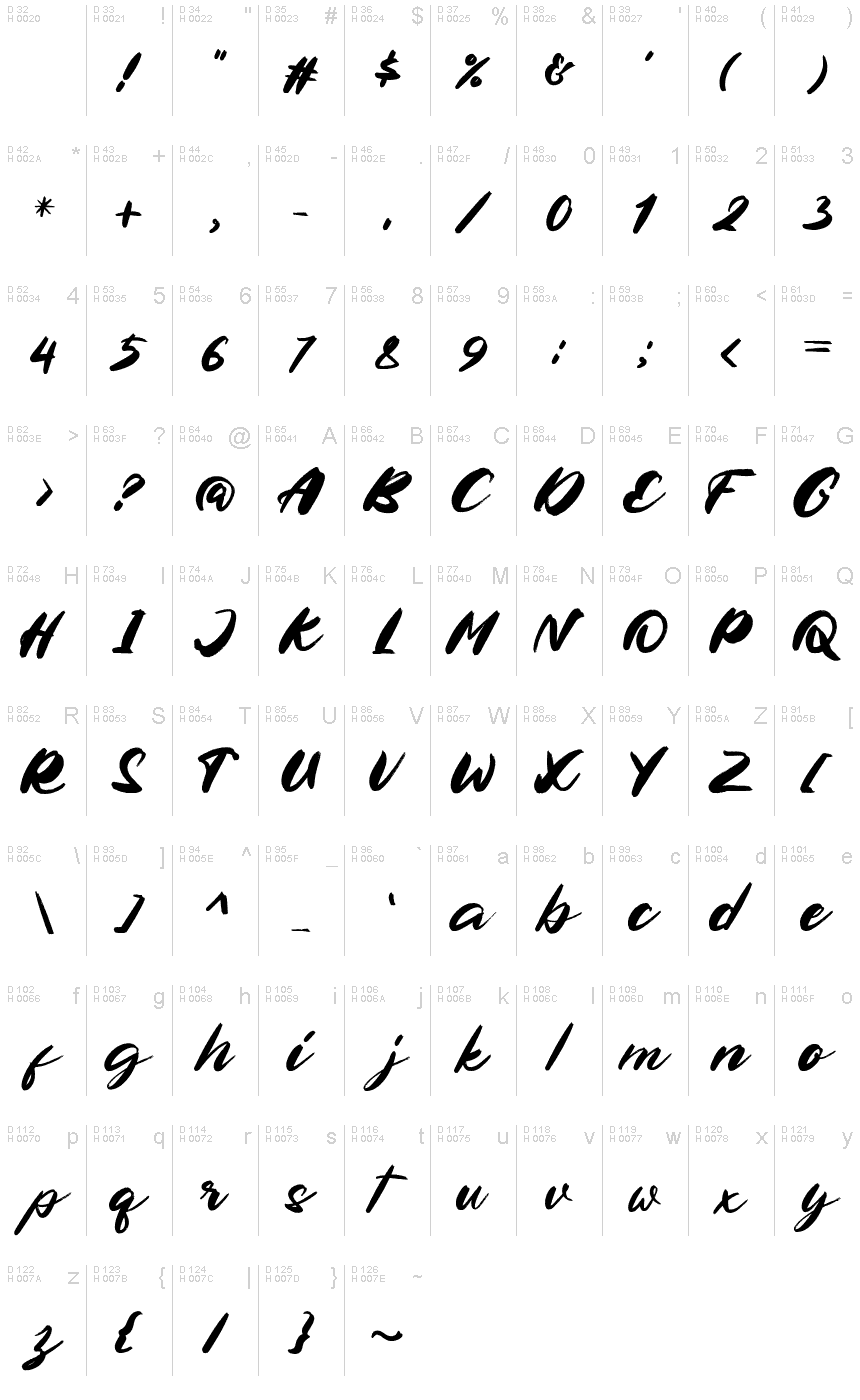
Gelato
Gelato by Alpaprana Studio is a bold brush font with a unique, hand-crafted design. Perfect for creating eye-catching headers, logos, and posters, Gelato is sure to make any project stand out!